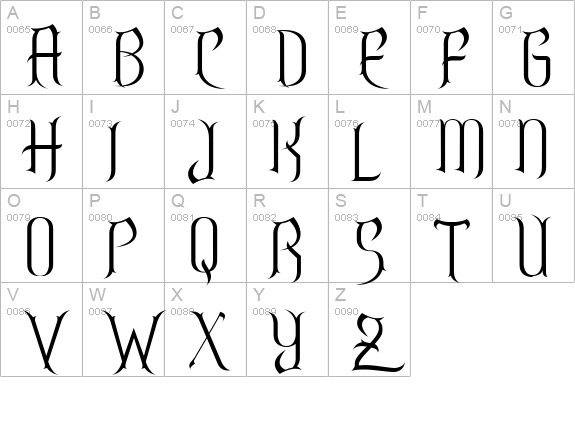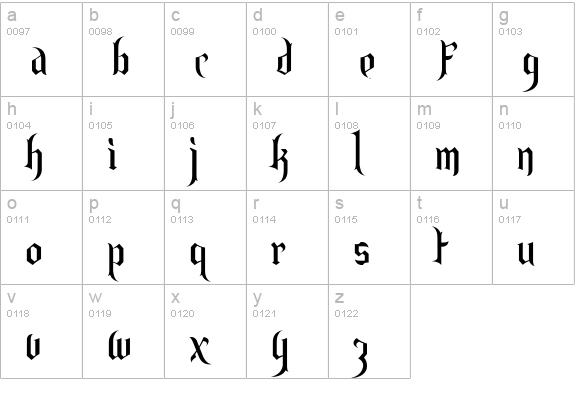
Endor Font Details
Endor font is a versatile and modern typeface that is sure to make a lasting impression. With its clean lines and elegant curves, this font is perfect for a wide range of design projects, from logos and branding to headlines and body text. But what sets Endor font apart from the rest is that it is completely free. Yes, you heard that right – this stunning font can be yours without spending a dime. Whether you're a professional designer or a hobbyist looking to add some flair to your personal projects, Endor font is the ideal choice. Downloading this font is a breeze, as it is freely available at FontsMarket.com. Simply visit the website, search for Endor font, and with just a few clicks, it will be yours to use and enjoy. FontsMarket.com is a trusted source for high-quality fonts, ensuring that you are getting a top-notch product. With its sleek and stylish design, Endor font is sure to elevate your designs to new heights. Its versatility allows it to be used in a variety of contexts, whether it's for a sleek and modern website, a sophisticated print advertisement, or a chic invitation. This font is truly a must-have for any designer's toolkit. Don't miss out on the opportunity to download Endor font for free. Visit FontsMarket.com today and discover the endless possibilities that this font can bring to your design projects. Say goodbye to boring typography and hello to the beauty of Endor font.